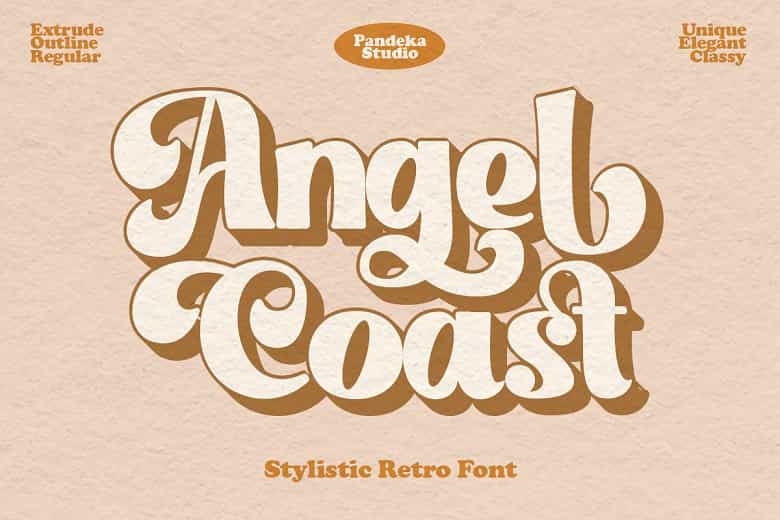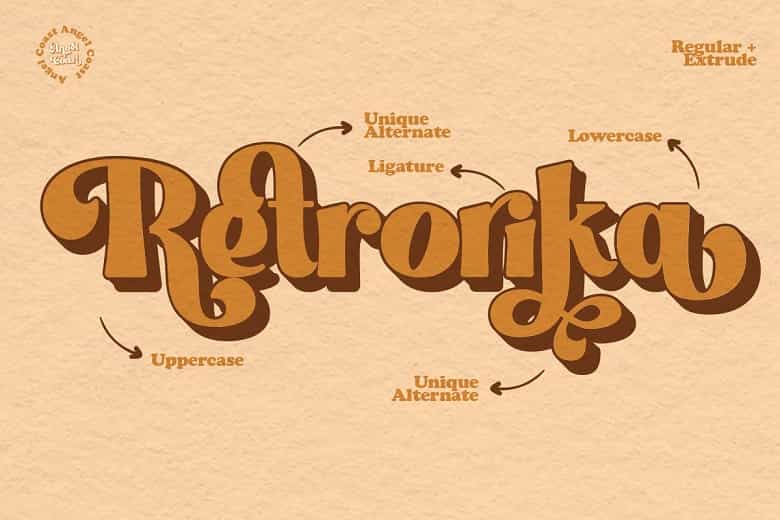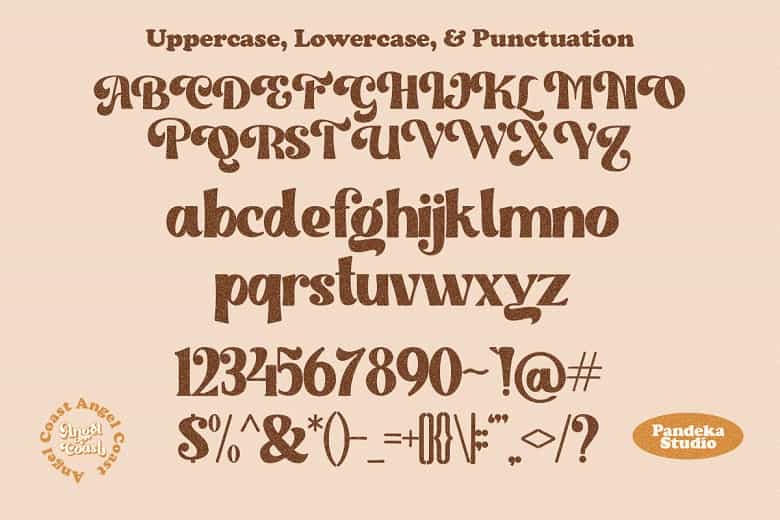
Angel Coast is a vintage style serif display font. The font pack that comes with this option will contain three different styles of the font namely; Regular, Outline, and Shadow. This display font is perfect if you want to give your design project that old fashioned look and feel.